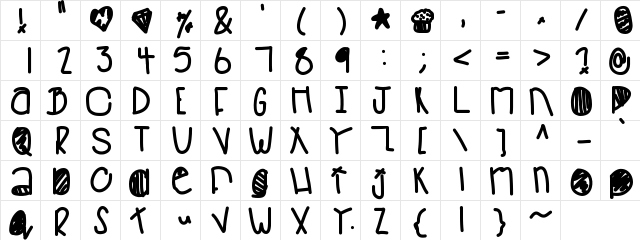
Complete BabooInSpace Medium glyph index. Displaying only characters natively supported by BabooInSpace Medium font.
BabooInSpace is a composed and adaptable typeface that performs quietly and consistently across a wide range of design contexts.